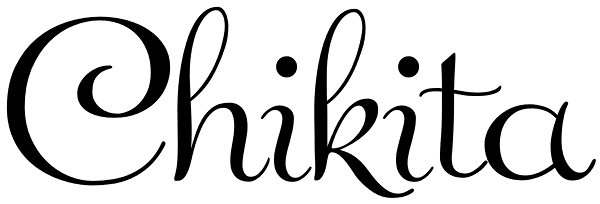
Chikita
Chikita greets you with big, happy eyes, and all the energy in the world. She wants to skip the talking and get to the dance floor, where she owns the beat and sways like a tongue of fire. She doesn't settle for anything less than everyone in the...